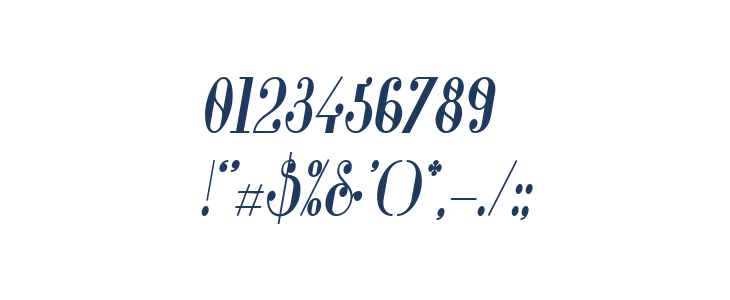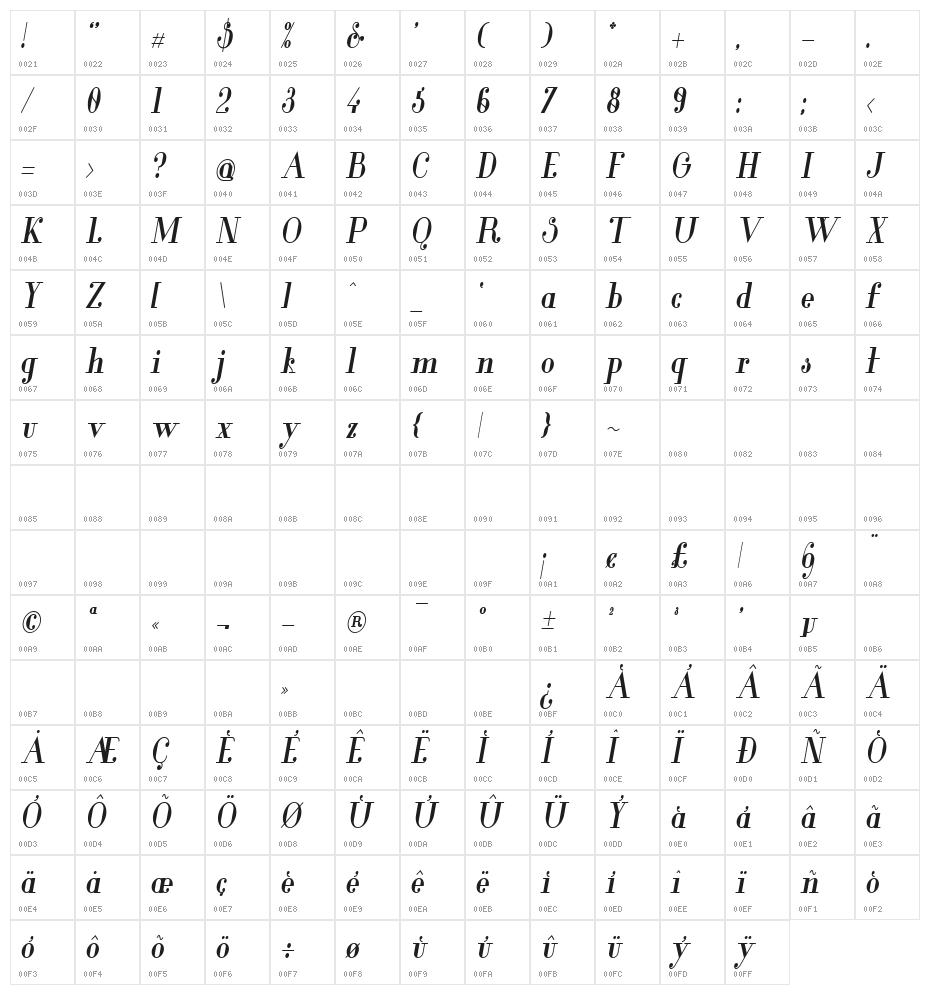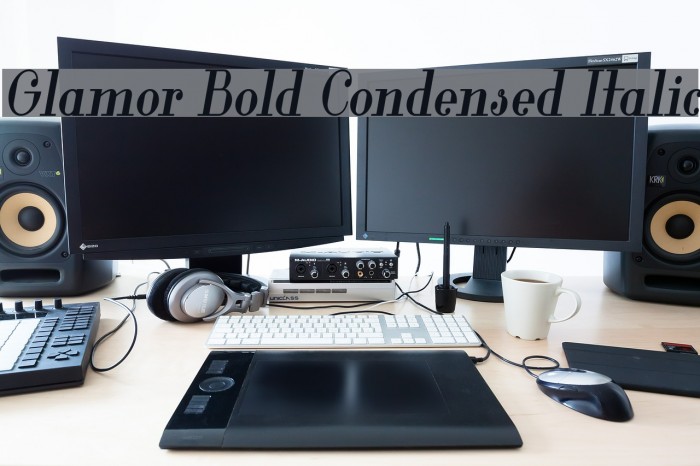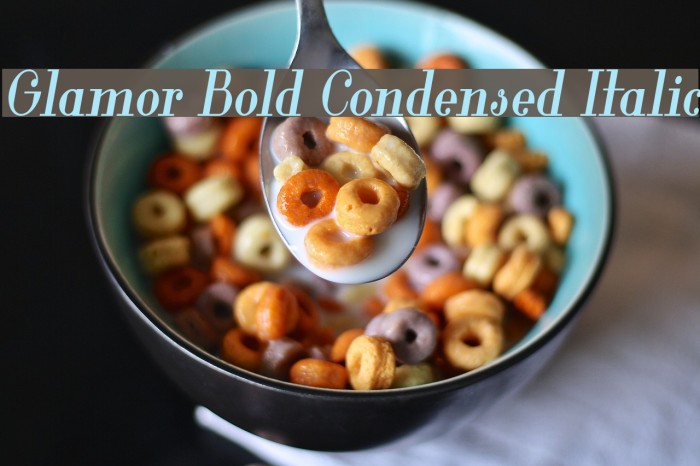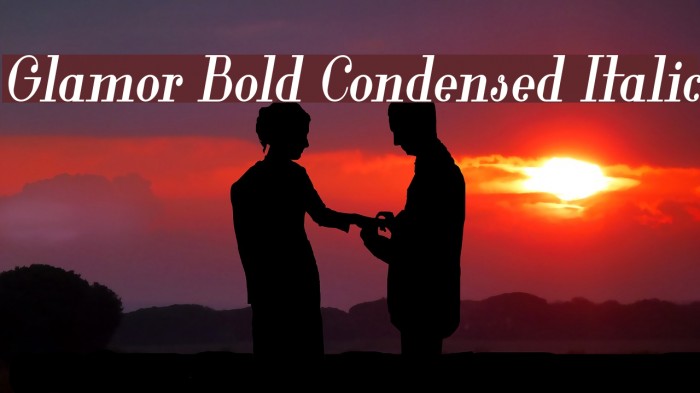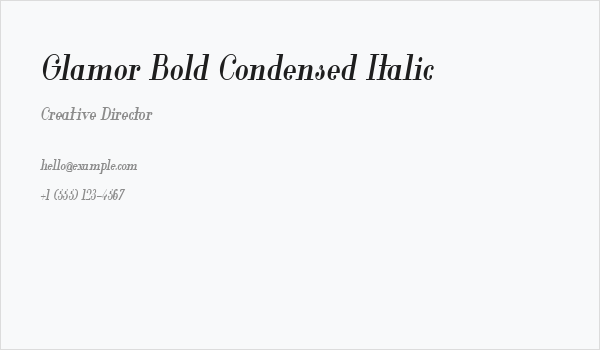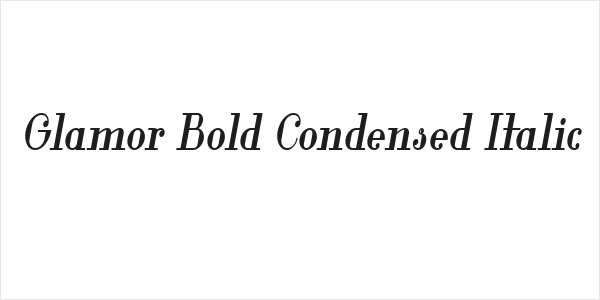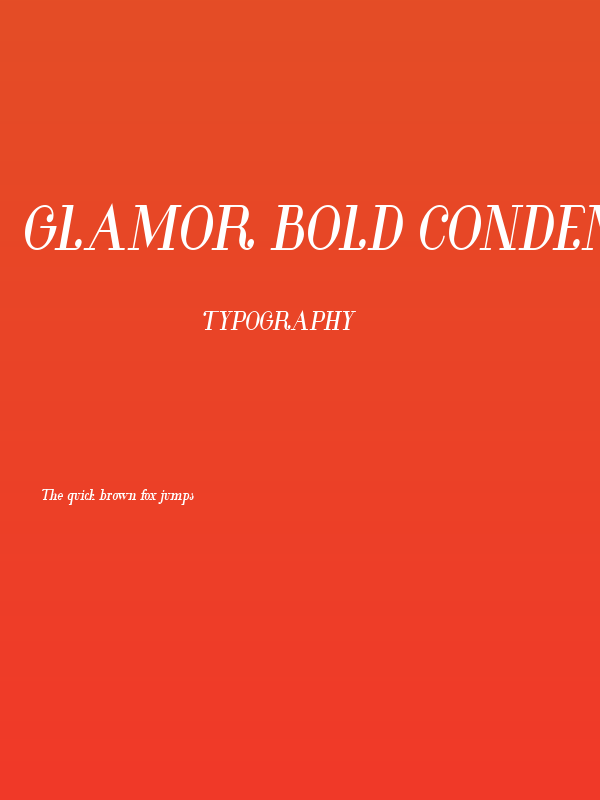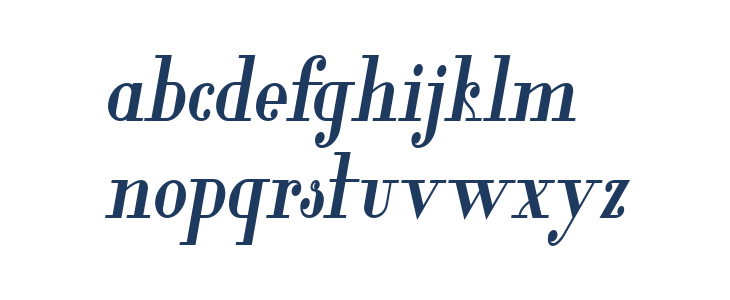
Glamor Bold Condensed Italic Font
Glamor Bold Condensed Italic Description
This font features a bold and condensed style with an elegant italic slant, creating a sophisticated and modern appearance. The uppercase letters are tall and narrow, with a slight flair at the ends, adding a touch of refinement. The lowercase letters maintain a consistent style, with smooth curves and a sleek, streamlined look. The numerals are well-proportioned, aligning seamlessly with the overall design. Special characters are thoughtfully crafted, ensuring versatility and coherence across various uses. The font's high contrast in stroke thickness enhances its readability and visual impact, making it suitable for both digital and print media.